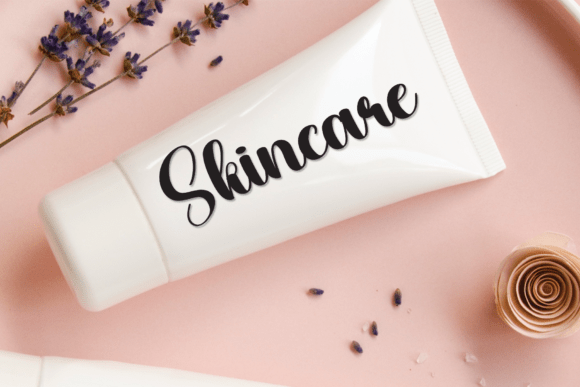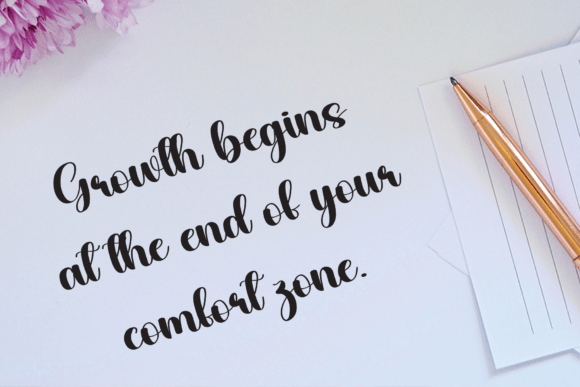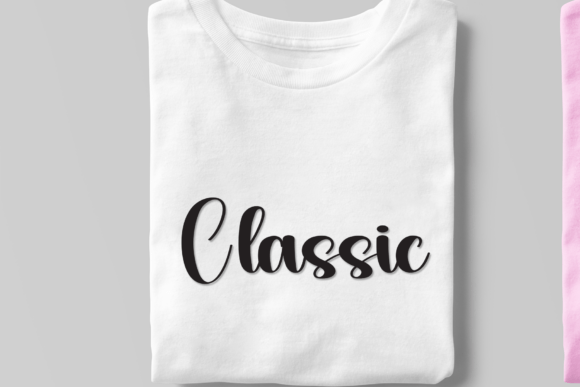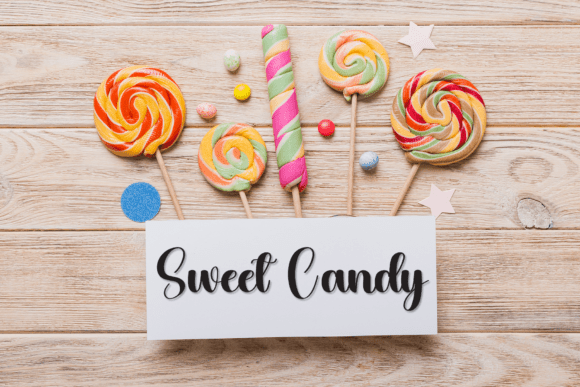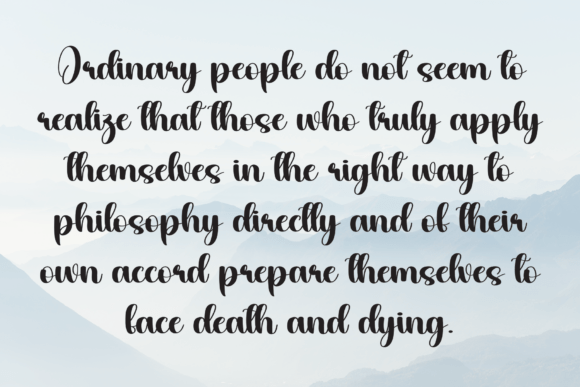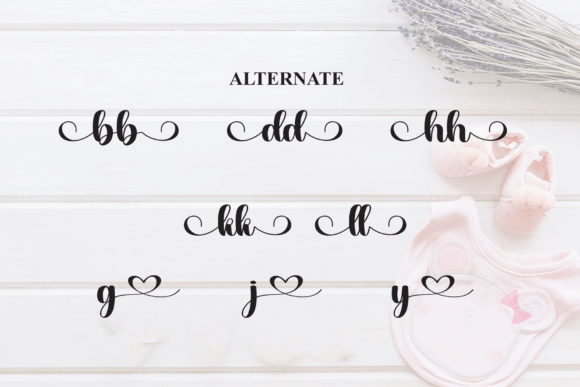
Discover the Sweetness of Baby Heart Font
Have you ever been brainstorming ideas for a project, only to have a sudden surge of creativity that makes everything fall into place? For designers, this feeling is all too familiar. And what if we told you that there’s a font that can unlock this magic for you? Enter Baby Heart Font, a charming handwritten font that’s as versatile as it is adorable.
Baby Heart Font is more than just a font – it’s a key to unlocking your creativity. With its natural and unique style, it’s the perfect fit for a wide range of designs, from children’s books to wedding invitations. Whether you’re a seasoned designer or just starting out, Baby Heart Font is an invaluable tool that can help bring your ideas to life.
Baby Heart Font Key Features
- Font Style: Cursive, Script, and Handwritten
- Unique Characteristics: Whimsical, playful, and childlike design; perfect for baby-related products, children’s books, and educational materials
Designer Review: Baby Heart Font
I’ve had the chance to work with the Baby Heart Font, and here’s my honest take on it.
- Unique and playful feel – The font has a distinct, childlike charm that’s perfect for projects targeting young audiences.
- Good for display text – Baby Heart Font shines when used for titles, headings, or other display text elements, adding a touch of whimsy to your designs.
- Customization options – The font offers some basic styling options, allowing for some flexibility in terms of size, color, and other visual effects.
- Limited legibility – The font’s cursive style can make it difficult to read at smaller sizes or in certain contexts, which may limit its use in body text or other areas where readability is crucial.
- No language support – Baby Heart Font appears to be designed primarily for Latin-based languages, with limited or no support for languages that use non-Latin scripts.
- Not ideal for large blocks of text – The font’s playful nature can become overwhelming when used for extended periods, making it less suitable for lengthy text passages.
While Baby Heart Font excels in specific areas, its limitations may restrict its use in more complex design projects. However, for the right application, it can be a delightful and effective choice.
The Baby Heart Font is perfect for creating whimsical and playful designs, such as:
Children’s party invitations
Baby shower decorations
Children’s book illustrations
For optimal results, use the Baby Heart Font in bold and italic styles to add emphasis and create visual interest.